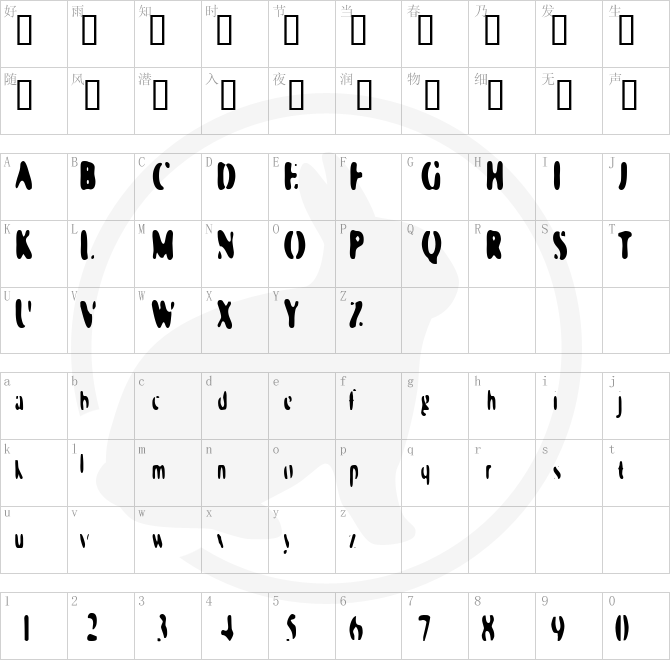
- Font Name:Galaxia
Galaxia-Nebulous.ttf is a very beautiful artistic font, Galaxia-Nebulous.ttf is widely used in the design and printing of various books and pictures,Galaxia-Nebulous.ttf has a strong visual impact,Galaxia-Nebulous.ttf is a commonly used font in newspapers, magazines and books, and is used in posters, e-commerce Poster design, store design, logo design, font design and other fields.Galaxia-Nebulous.